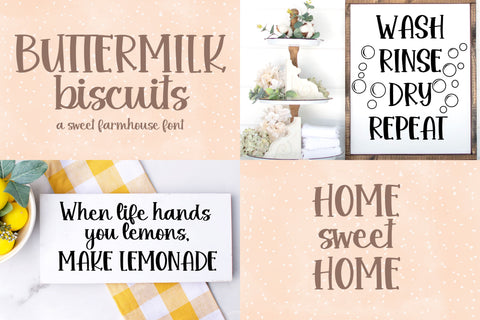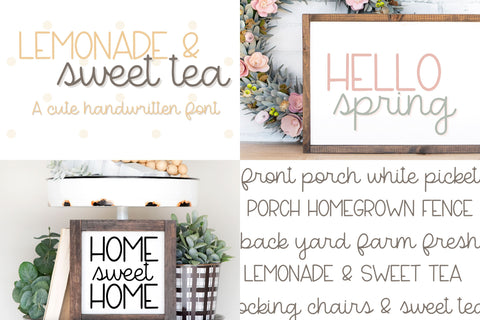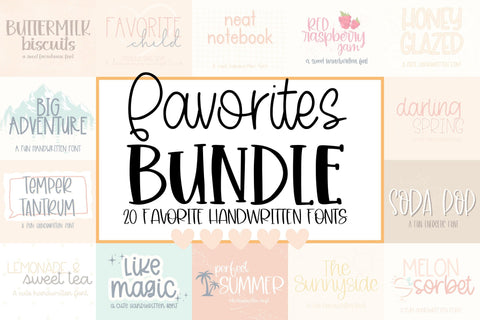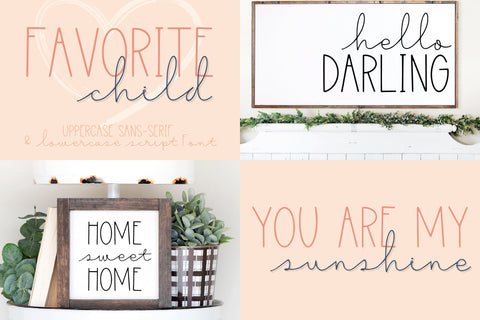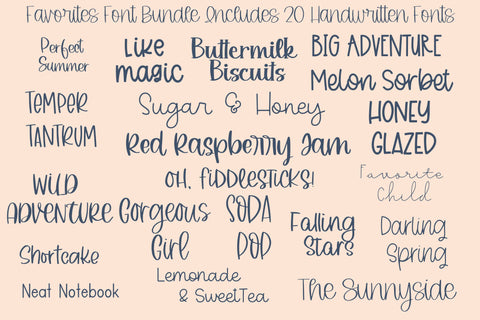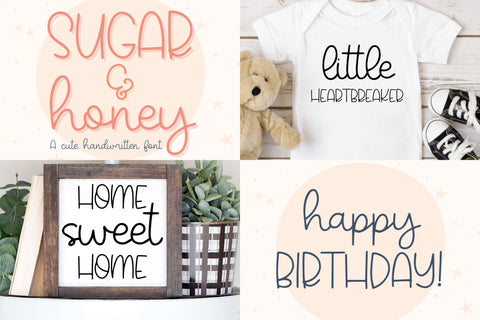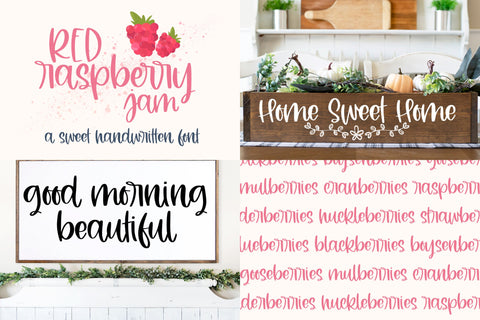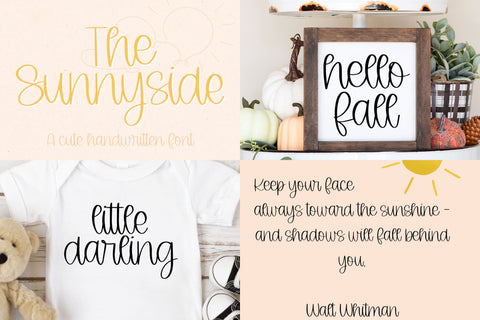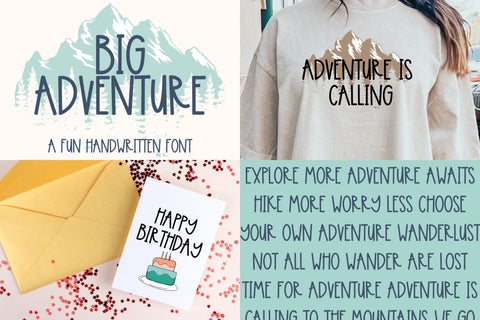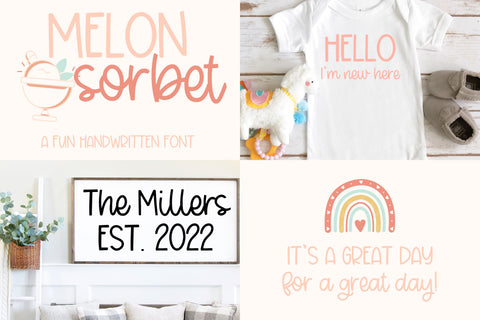
Favorites Handwritten Font Bundle for Cricut, Cute Cursive Handwriting
Introducing our irresistible Favorites Handwritten Font Bundle, a delightful collection of 20 cute handwritten fonts for Cricut and more! This comprehensive bundle includes an array of stunning cursive and script fonts, specifically designed for various creative projects. Whether you're crafting personalized items or designing digital artwork, our font bundle offers the perfect blend of style and versatility. Our fonts are compatible with Cricut SVGs, Goodnotes, Procreate, and many other programs. Elevate your creative endeavors today with our exceptional cute Handwritten Font Bundle and unlock endless possibilities for your projects!
Fonts included are:
Big Adventure
Buttermilk Biscuits
Darling Spring
Falling Stars
Favorite Child
Gorgeous Girl
Honey Glazed
Lemonade & Sweet Tea
Like Magic
Melon Sorbet
Neat Notebook
Oh, Fiddlesticks!
Perfect Summer
Red Raspberry Jam
Shortcake
Soda Pop
Sugar & Honey
Temper Tantrum
The Sunnyside
Wild Adventure